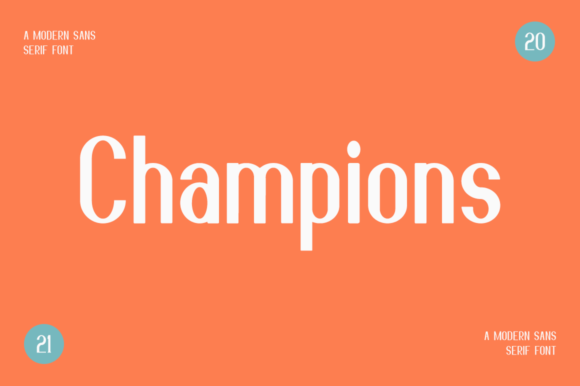
Get Ready to Unleash the Power of Champions Font: Your Secret Weapon for Designing Brilliance
In a world of digital storytelling, where words come alive on screens, it's the font that sets the stage for an unforgettable reading experience. Introducing Champions Font, the ultimate sans serif font family meticulously crafted to elevate your book body text to new heights of readability and visual appeal.
Champions Font is not just a font; it's an artistic masterpiece that transforms the written word into an immersive symphony of letters, captivating readers from the first word to the last. Experience the allure of its clean lines, crisp edges, and perfectly balanced letterforms, designed to create an effortless flow that guides the reader's eyes through your prose like a gentle breeze.
Crafted with the utmost precision and attention to detail, Champions Font embodies minimalism and modernity, allowing your words to take center stage without overwhelming the reader. Its meticulously spaced characters and carefully considered kerning create a harmonious visual rhythm that enhances readability, ensuring that your message is conveyed with clarity and impact.
With Champions Font, you'll discover a font that seamlessly adapts to a myriad of genres and styles, from captivating fiction to thought-provoking non-fiction, from captivating memoirs to insightful essays. Its versatility knows no bounds, making it the perfect choice for authors, bloggers, and content creators seeking to enchant their readers with the beauty of the written word.
Born from the creative genius of RockboyStudio, Champions Font carries the legacy of excellence that has made their fonts synonymous with quality and innovation. Trust in the expertise of RockboyStudio to deliver a font that not only meets your expectations but exceeds them, leaving you in awe of its transformative power.
Step into the world of Champions Font today and witness the transformation of your written words into a visual symphony that captivates and inspires. Let your stories take flight on the wings of this remarkable font, creating an indelible mark on the hearts and minds of your readers.